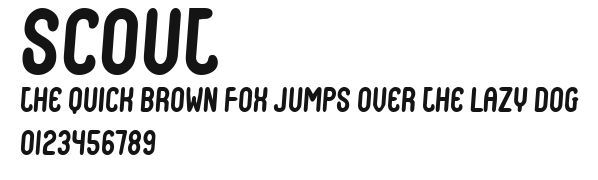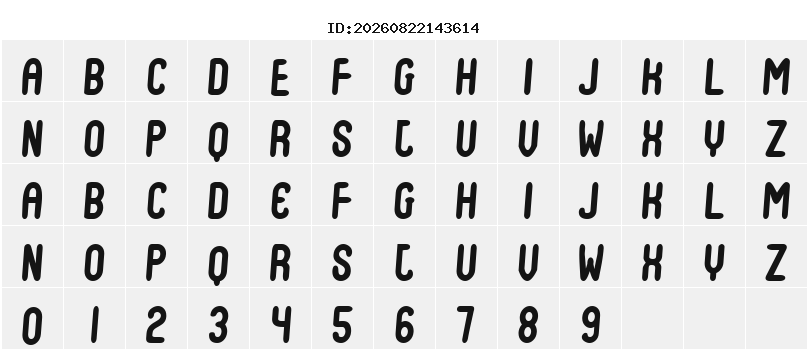
• Font Name: Scout
• Full Font Name: Scout
About Scout.ttf
Scout.ttf is a modern, elegant sans-serif font designed for ultimate readability and visual harmony. Perfect for branding, headlines, web design, and print materials.